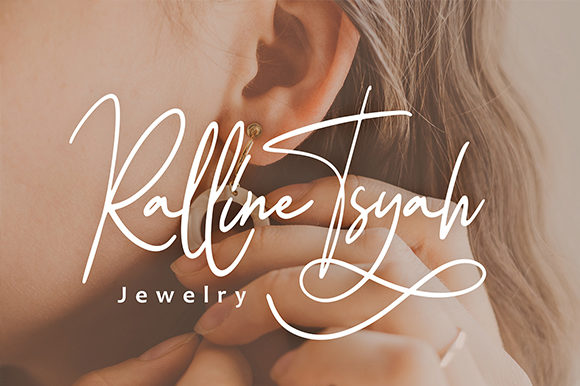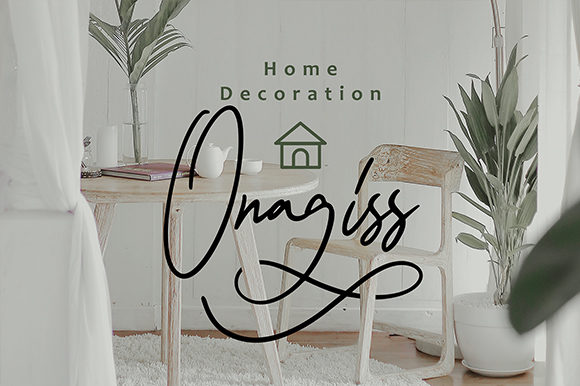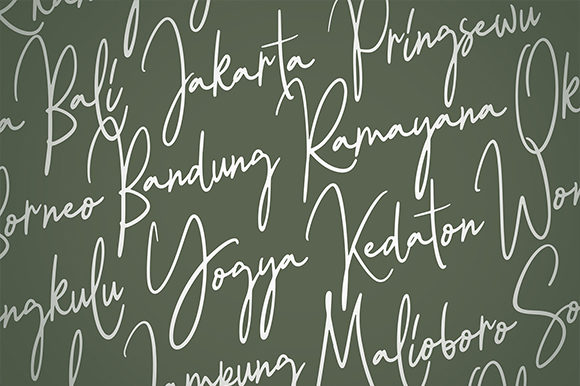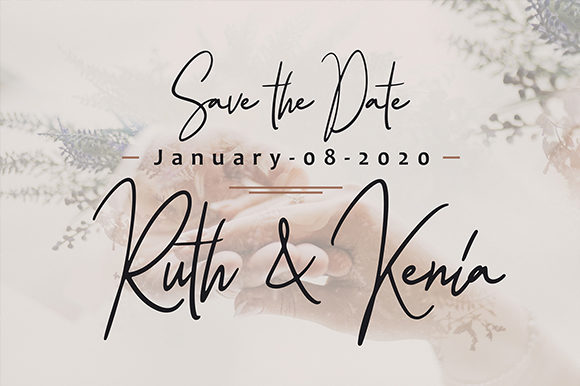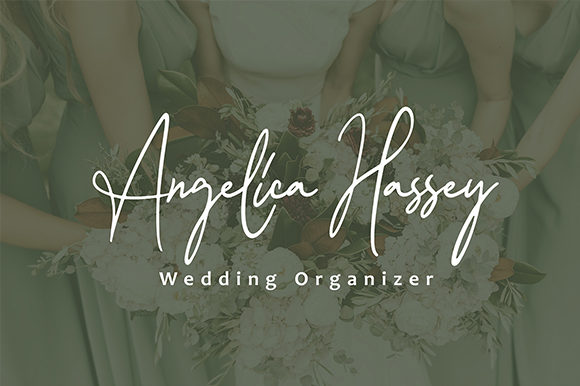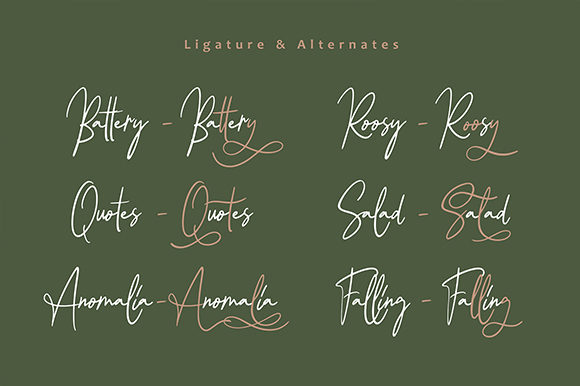
Introducing Balietan Font: Elevate Your Designs with Elegance and Sophistication
Are you a designer or crafter looking for a font that can add a touch of elegance and sophistication to your projects? Look no further than Balietan Font, a stunning and modern script font that is sure to take your designs to the next level. With its flowing style and fancy aesthetic, Balietan Font is the perfect choice for a wide variety of projects, from branding and advertising to packaging and more.
What Makes Balietan Font So Special?
Balietan Font is a truly unique and eye-catching font that is sure to make your designs stand out from the crowd. Its flowing script style is both elegant and sophisticated, making it perfect for designs that require a touch of luxury and refinement. Whether you’re creating a logo, brochure, or packaging design, Balietan Font is sure to add a level of sophistication and style that will leave a lasting impression on your audience.
Key Features of Balietan Font
So, what makes Balietan Font so special? Here are just a few of its key features:
- Flowing Script Style: Balietan Font features a beautiful, flowing script style that is both elegant and sophisticated.
- Modern Aesthetic: With its modern aesthetic, Balietan Font is perfect for designs that require a fresh and contemporary look.
- Fancy and Ornate: Balietan Font is a fancy and ornate font that is sure to add a touch of luxury and refinement to your designs.
- Highly Versatile: Whether you’re creating a logo, brochure, or packaging design, Balietan Font is highly versatile and can be used for a wide variety of projects.
How to Use Balietan Font in Your Designs
- Use it for Headings and Titles: Balietan Font is perfect for headings and titles, where its elegant and sophisticated style can really shine.
Why Designers and Crafters Love Balietan Font
So, why do designers and crafters love Balietan Font? Here are just a few reasons:
- Unique and Eye-Catching: Balietan Font is a truly unique and eye-catching font that is sure to make your designs stand out from the crowd.
- Elegant and Sophisticated: With its elegant and sophisticated style, Balietan Font is perfect for designs that require a touch of luxury and refinement.
- Highly Versatile: Whether you’re creating a logo, brochure, or packaging design, Balietan Font is highly versatile and can be used for a wide variety of projects.
| Font Name | Balietan Font |
| Author | Nurmiftah |
In conclusion, Balietan Font is a stunning and modern script font that is sure to elevate your designs with elegance and sophistication. With its flowing style and fancy aesthetic, Balietan Font is the perfect choice for a wide variety of projects, from branding and advertising to packaging and more. So why wait? Download Balietan Font today and take your designs to the next level!